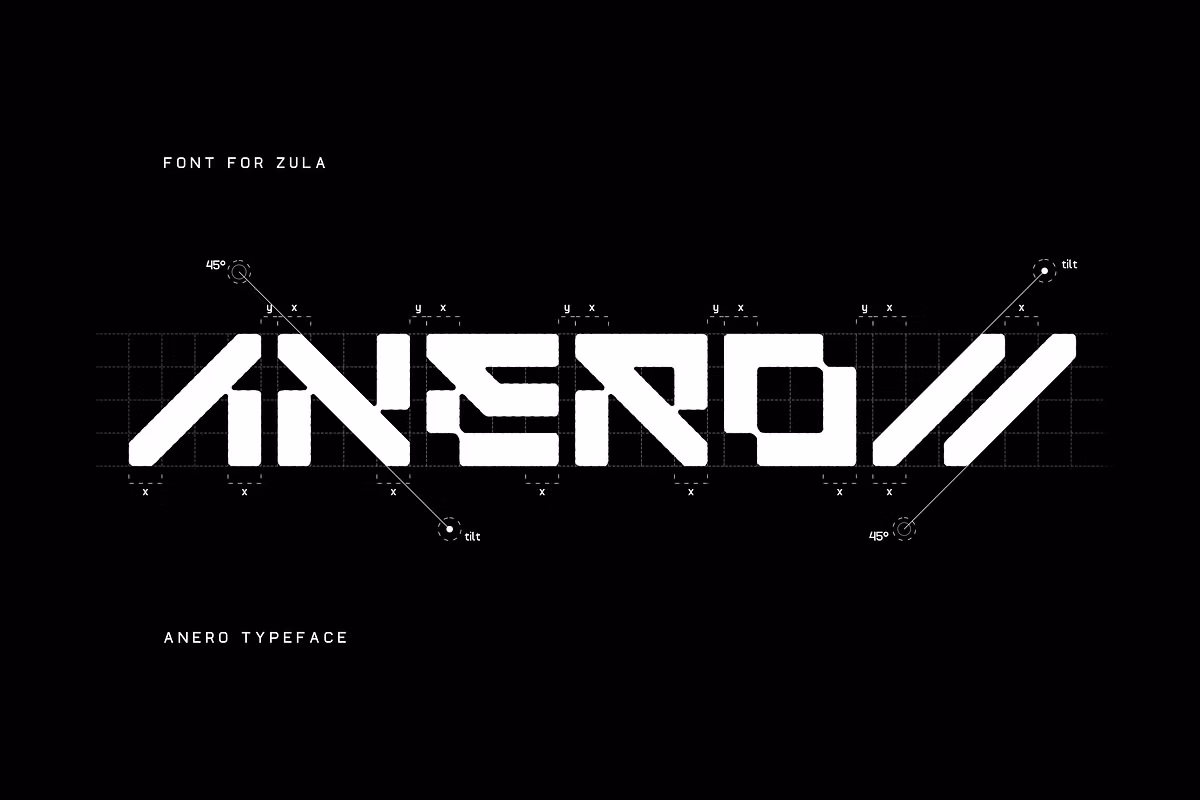
Step into the future with ANERO - Futuristic Display Font Free Download. This sleek, modern display typeface features geometric, angular letterforms with a futuristic edge, making it perfect for tech-related projects, logos, branding, posters, and any design that requires a cutting-edge, high-tech aesthetic.
ANERO combines sharp lines with bold proportions, giving your typography a dynamic, forward-thinking look. It includes uppercase and lowercase letters, numerals, punctuation, and multilingual support, making it ideal for testing modern, impactful layouts in both print and digital formats.